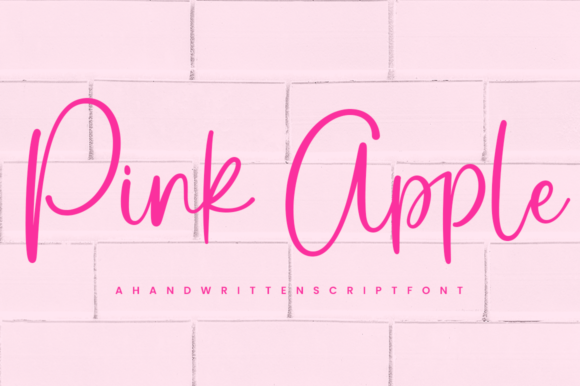
**Pink Apple Font: Experience a Touch of Elegance in Your Designs**
In a world filled with monotonous fonts, Pink Apple emerges as a breath of fresh air, captivating hearts with its graceful strokes and enchanting curves. This masterpiece is designed to uplift your creative projects to new heights, adding a touch of sophistication and charm. Whether you're a seasoned designer or just starting out, Pink Apple will elevate your designs with its undeniable allure.
**Immerse Yourself in a World of Creativity with Pink Apple**
Pink Apple is more than just a font; it's an experience that sparks your imagination and sets your creativity free. Its flowing script is reminiscent of a gentle breeze, carrying your words with grace and elegance. Each letter dances across the page, forming a harmonious blend of beauty and functionality. With Pink Apple, your designs will radiate a timeless charm that resonates with your audience.
**Unlock the Power of Visual Storytelling with Pink Apple**
In the realm of visual storytelling, Pink Apple reigns supreme. Its delicate curves and sweeping strokes command attention, inviting your audience into a world of wonder and enchantment. Use Pink Apple to craft captivating logos that leave an unforgettable impression, or create breathtaking invitations that exude a sense of exclusivity. The possibilities are endless, allowing you to weave tales that captivate and inspire.
**Elevate Your Photography to Artistic Heights with Pink Apple**
For photographers seeking to transform their images into masterpieces, Pink Apple is the ultimate companion. Its fluid lines and graceful flourishes add a touch of artistry to your photographs, turning them into breathtaking works of art. Whether you're capturing the beauty of nature, the joy of human connection, or the magic of everyday moments, Pink Apple will elevate your images to new levels of visual splendor.
**Experience the Versatility of Pink Apple in Endless Creative Ventures**
Pink Apple's versatility extends far beyond photography. Unleash its potential in branding, wedding invitations, social media posts, greeting cards, and any project that demands a touch of elegance and sophistication. With Pink Apple, you'll discover a font that seamlessly adapts to your creative vision, enhancing your designs with a timeless appeal.